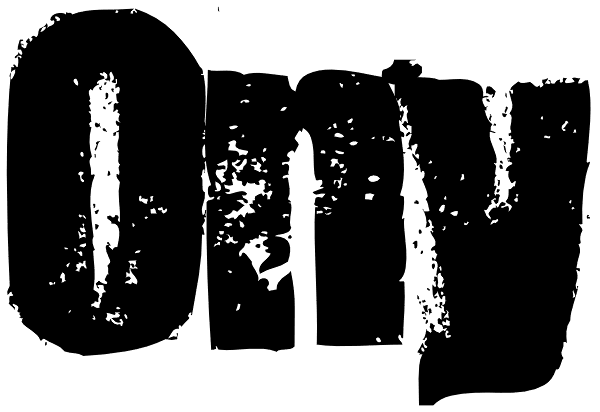
Ony
Ony font was made by cutting letters in cardboard and printing them on paper. This non-perfect printing was used to get heavy, dirty letters. Font has alternate characters so it can imitate real printed words.